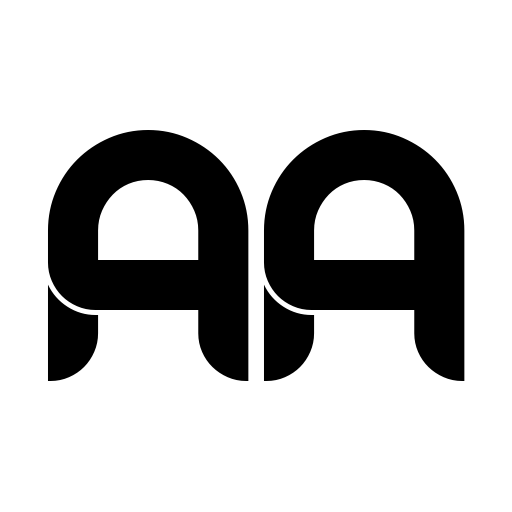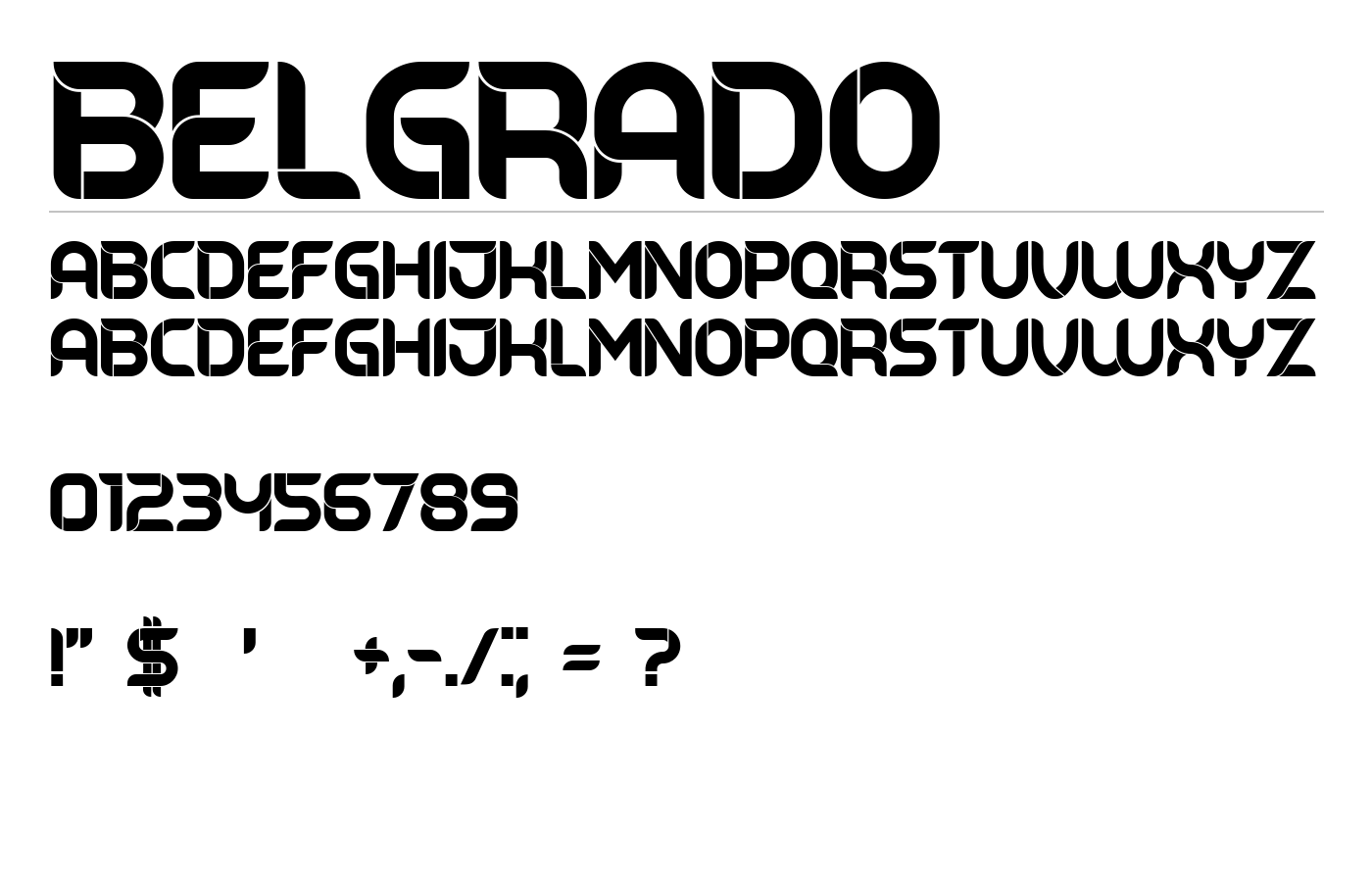
Belgrado is a bold, geometric sans serif font with a futuristic and modern vibe, featuring clean, rounded shapes and distinct segmented strokes that create a stylish, tech-inspired look. Its wide, even letterforms and strong presence make it ideal for eye-catching headlines, logos, and branding that aim to convey innovation and contemporary sophistication. This font works well in digital and advertising contexts where a unique, memorable display style is needed.
Belgrado Font
About Belgrado Font